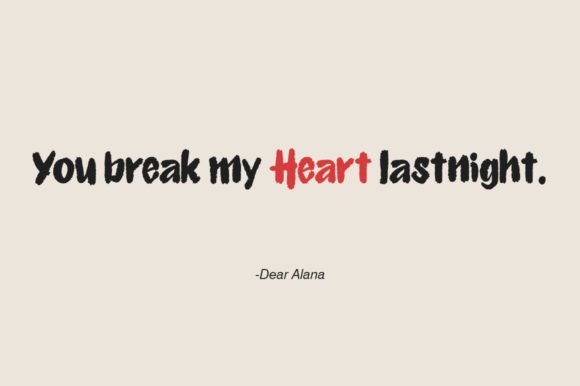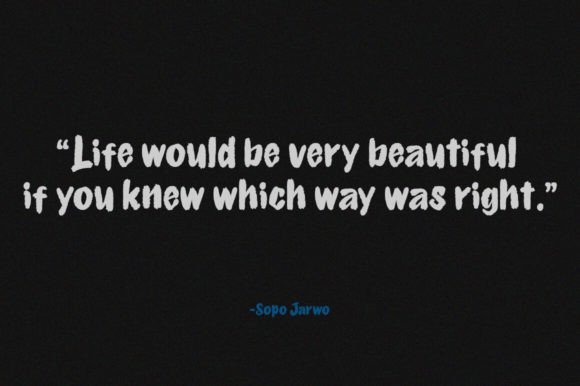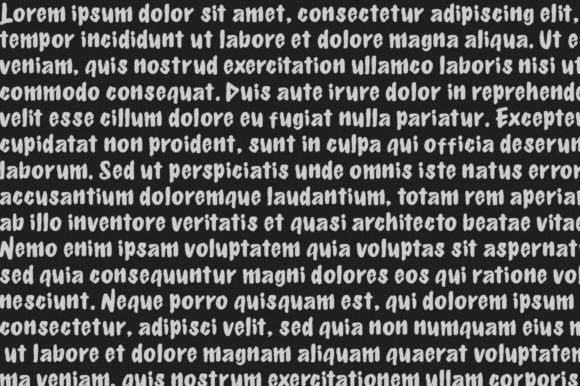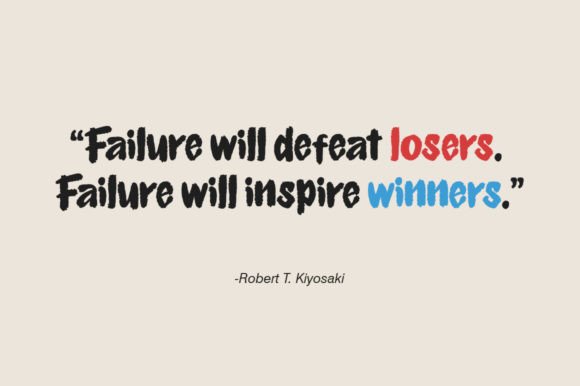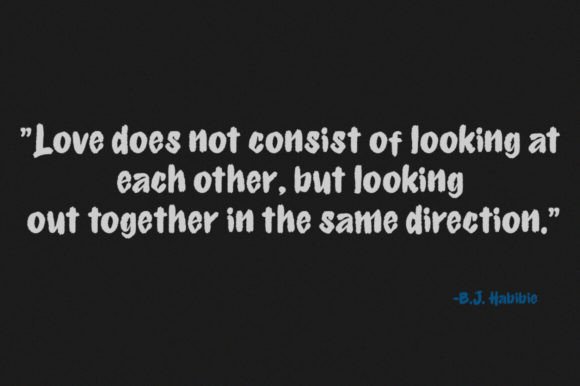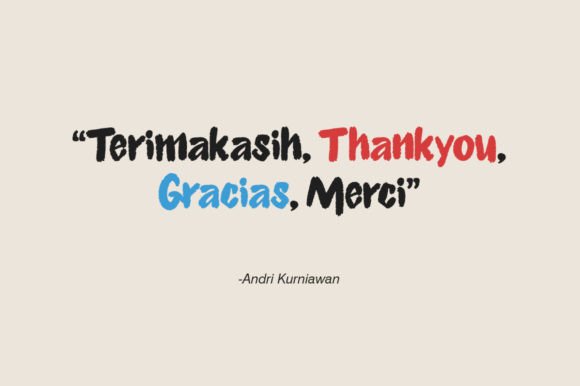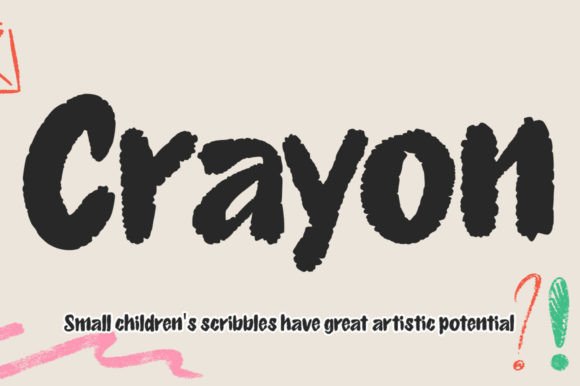
Introducing Crayon Font: Unleash Your Creativity with a Touch of Whimsy
Are you tired of using the same old fonts in your designs? Look no further than Crayon Font, a delightful typeface that captures the playful, whimsical essence of children’s handwriting. With its unique and charming style, Crayon Font is perfect for adding a touch of innocent childlike nostalgia to any project.
The Inspiration Behind Crayon Font
Crayon Font is designed to evoke the feeling of childhood creativity and imagination. Its irregularities and quirks are reminiscent of handwritten text written in crayon on a piece of paper. The font’s creator aimed to bottle up the magic of childhood and put it into a digital font that could be used by designers and crafters around the world.
One of the best things about Crayon Font is its versatility. It can seamlessly blend into a multitude of platforms, from cafe websites and restaurant menus to art exhibition posters and children’s storybooks. Whether you’re designing a digital product or a print material, Crayon Font is sure to add a touch of personality and whimsy.
Crayon Font is a dream come true for designers and crafters who love to work on creative projects. Its playful and imaginative style makes it perfect for:
- Cafe websites and restaurant menus: Add a touch of whimsy to your menu or website with Crayon Font.
- Art exhibition posters: Create eye-catching posters that showcase your artwork with Crayon Font.
- Children’s storybooks: Bring your story to life with Crayon Font, perfect for children’s books and educational materials.
- DIY projects: Use Crayon Font to add a personal touch to your DIY projects, such as party invitations, greeting cards, and more.
Why Choose Crayon Font?
So, why choose Crayon Font over other fonts? Here are just a few reasons:
- Unique and charming style: Crayon Font has a one-of-a-kind style that’s sure to stand out.
- Easy to read: Despite its playful style, Crayon Font is easy to read and understand.
- Highly versatile: Use Crayon Font across multiple platforms and projects.
- Evokes emotions: Crayon Font is sure to evoke feelings of nostalgia and playfulness.
Tips for Using Crayon Font
Here are a few tips for using Crayon Font in your designs:
- Pair with bold fonts: Pair Crayon Font with bold fonts for a striking contrast.
- Use in headlines: Use Crayon Font in headlines to add a touch of whimsy and personality.
- Experiment with colors: Experiment with different colors to bring out the playful style of Crayon Font.
- Keep it simple: Don’t overdo it – keep your design simple and clean to let Crayon Font shine.
In conclusion, Crayon Font is a delightful typeface that’s sure to bring a touch of whimsy and creativity to any project. Its unique and charming style makes it perfect for designers and crafters who love to work on creative projects. Whether you’re designing a children’s storybook or a cafe website, Crayon Font is sure to add a hint of innocent childlike nostalgia. So, why not give Crayon Font a try and unleash your creativity?